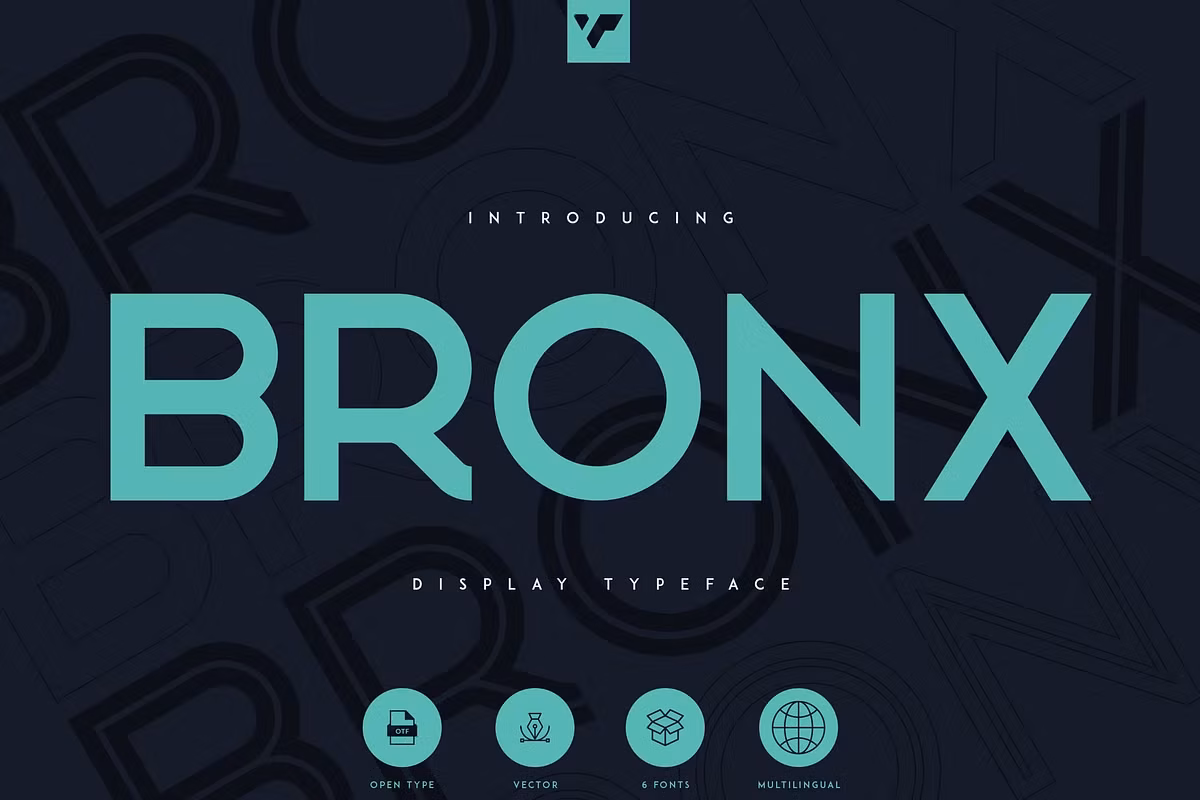
Bronx - Sans Serif typeface 6 fonts Free Download
Bronx - Sans Serif Typeface 6 Fonts Free Download
Bronx - Sans Serif Typeface 6 Fonts Free Download is a sleek and modern font family that includes 6 distinct weights, offering a range of options to suit any design project. With its clean, minimalistic style and versatile design, Bronx is ideal for branding, editorial design, advertising, web design, and any project requiring clear, professional typography.
The simplicity and elegance of the Bronx family make it perfect for both display and body text, ensuring readability while maintaining a strong visual presence. Whether you're designing for a tech brand, corporate materials, or minimalist websites, Bronx provides the flexibility and modern appeal needed for contemporary design.